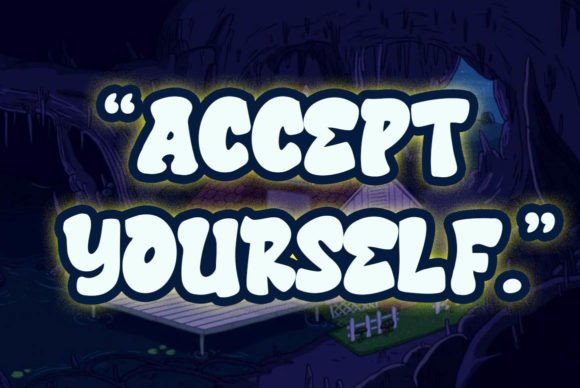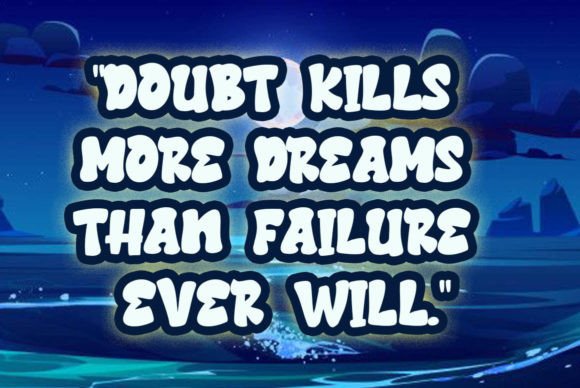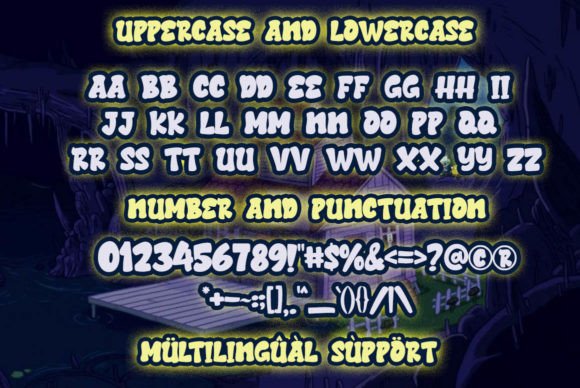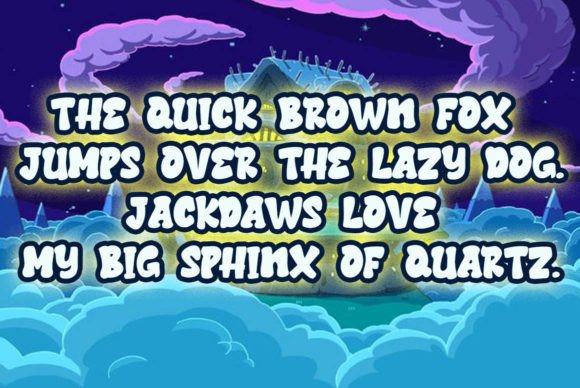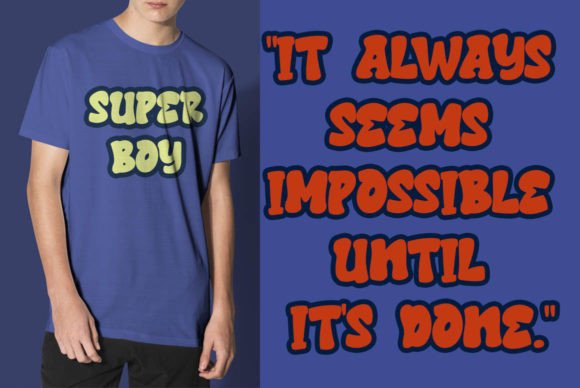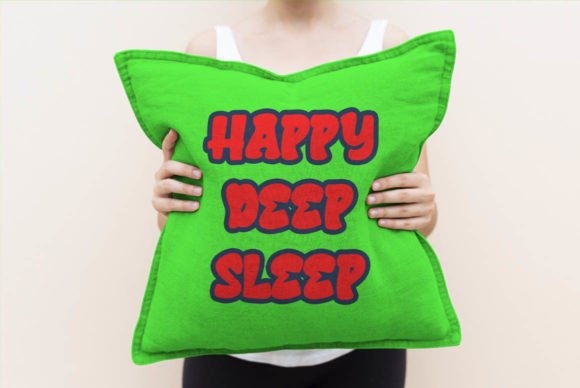
Introducing Defry Font: The Bouncy, Unique, and Funny Display Font for Creative Projects
Are you tired of using the same old fonts for your brand and logo designs? Do you want to add a touch of playfulness and uniqueness to your creative projects? Look no further than Defry Font, a bouncy, unique, and funny display font that’s perfect for games, cartoons, logos, branding, and many other creative endeavors.
What Makes Defry Font So Special?
Defry Font is a one-of-a-kind typeface that’s sure to make your designs stand out from the crowd. Its bouncy and playful design makes it perfect for adding a touch of whimsy to your projects, while its unique and funny style ensures that your designs will be remembered. Whether you’re working on a brand identity, logo design, or creative project, Defry Font is the perfect choice.
Perfect for Games and Cartoons
Defry Font is especially well-suited for games and cartoons, where a playful and fun font can make all the difference. Its bold and bouncy design ensures that your game’s title or cartoon’s logo will grab attention and leave a lasting impression. Plus, its unique style will help your game or cartoon stand out from the competition.
Branding and Logo Design
But Defry Font isn’t just limited to games and cartoons. It’s also perfect for branding and logo design, where a unique and memorable font can help establish your brand’s identity. Whether you’re working on a new brand launch or refreshing an existing brand, Defry Font is a great choice. Its bouncy and playful design will add a touch of personality to your brand, while its unique style will ensure that your brand stands out.
What You Get with Defry Font
When you choose Defry Font, you can expect to get a high-quality, unique text that’s perfect for your creative projects. This typeface is designed to deliver a one-of-a-kind look that’s sure to impress. With Defry Font, you’ll get:
- A bouncy, unique, and funny display font that’s perfect for brand and logo designs
- A font that’s especially well-suited for games, cartoons, logos, branding, and many other creative projects
- A high-quality, unique text that’s sure to make your designs stand out
Why Choose Defry Font?
So why choose Defry Font for your creative projects? Here are just a few reasons:
- Unique Style: Defry Font has a unique and playful style that’s sure to make your designs stand out.
- Versatility: Defry Font is perfect for a wide range of creative projects, from games and cartoons to branding and logo design.
- High-Quality: Defry Font is a high-quality typeface that’s designed to deliver a professional-looking text.
| Font Name | Defry Font |
| Author | Zaenal Studio |
If you’re looking for a bouncy, unique, and funny display font for your creative projects, look no further than Defry Font. With its playful design, unique style, and high-quality text, Defry Font is the perfect choice for games, cartoons, logos, branding, and many other creative endeavors. So why wait? Choose Defry Font today and add a touch of whimsy to your designs!